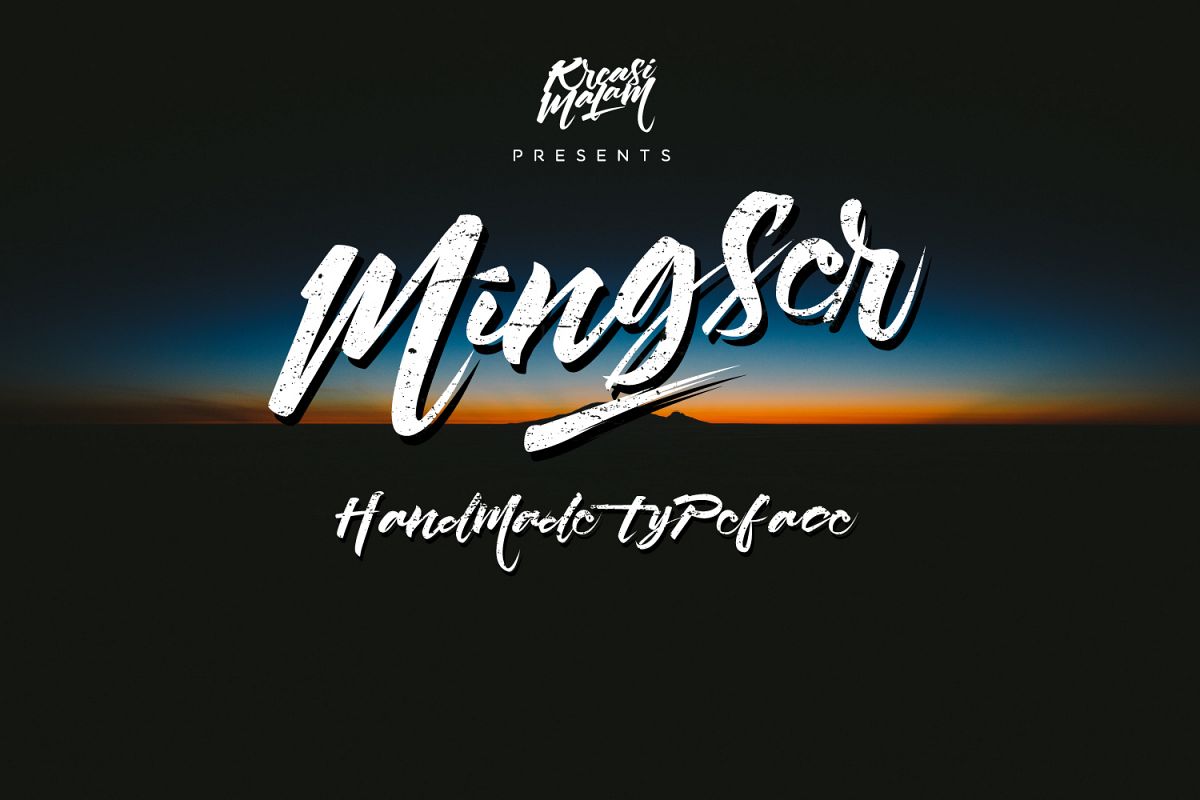
Mingser
Mingser Swash
Mingser
Mingser Font a handmade calligraphy font would be awesome for your design projects. It could be fitted for logos, quotes, t-shirts, posters or anything.
Available in uppercase, lowercase, numerals and punctuation.